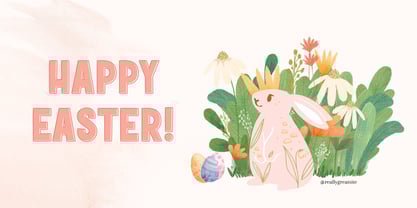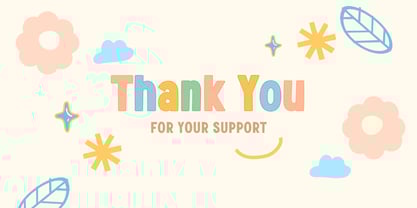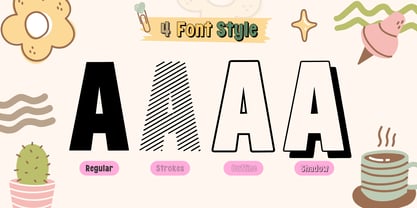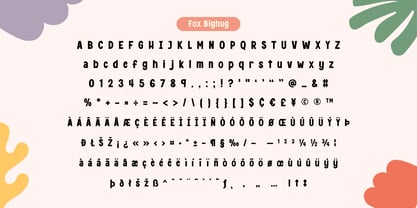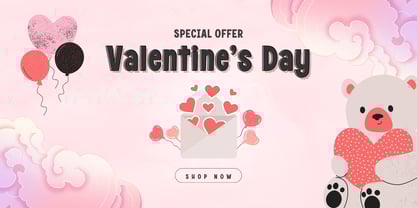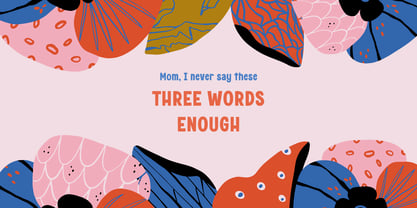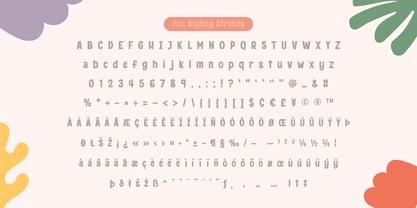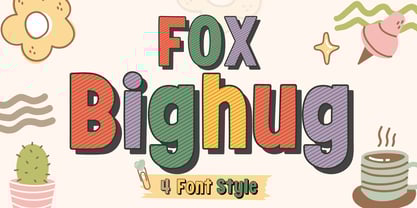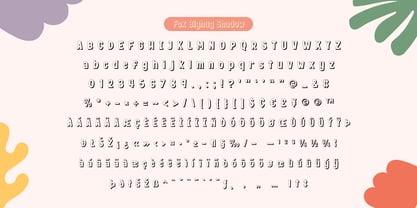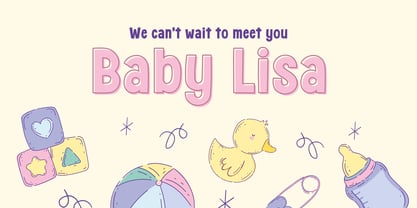
Fox Bighug
by Fox7
The Fox Bighug Font Family was designed by Rattana Rattanawan and published by Fox7. Fox Bighug contains 4 styles and family package options.
Fox Bighug is a fun and chunky display font perfect for playful and eye-catching designs. With its bold, rounded letters and lively personality, this font is ideal for posters, branding, packaging, and children’s projects.
This font comes with 4 unique styles to give your designs extra versatility:
🔹 RegularA solid and bold style for strong, impactful text.
🔹 StrokesA creative hand-drawn striped effect for a fun, sketchy look.
🔹 OutlineA clean, outlined version for modern and stylish typography.
🔹 ShadowA bold variation with depth and dimension.
Fox Bighug brings a friendly and playful vibe to any design. Whether you're creating greeting cards, social media graphics, or merchandise like mugs and T-shirts, this font will add a touch of fun and warmth to your project!